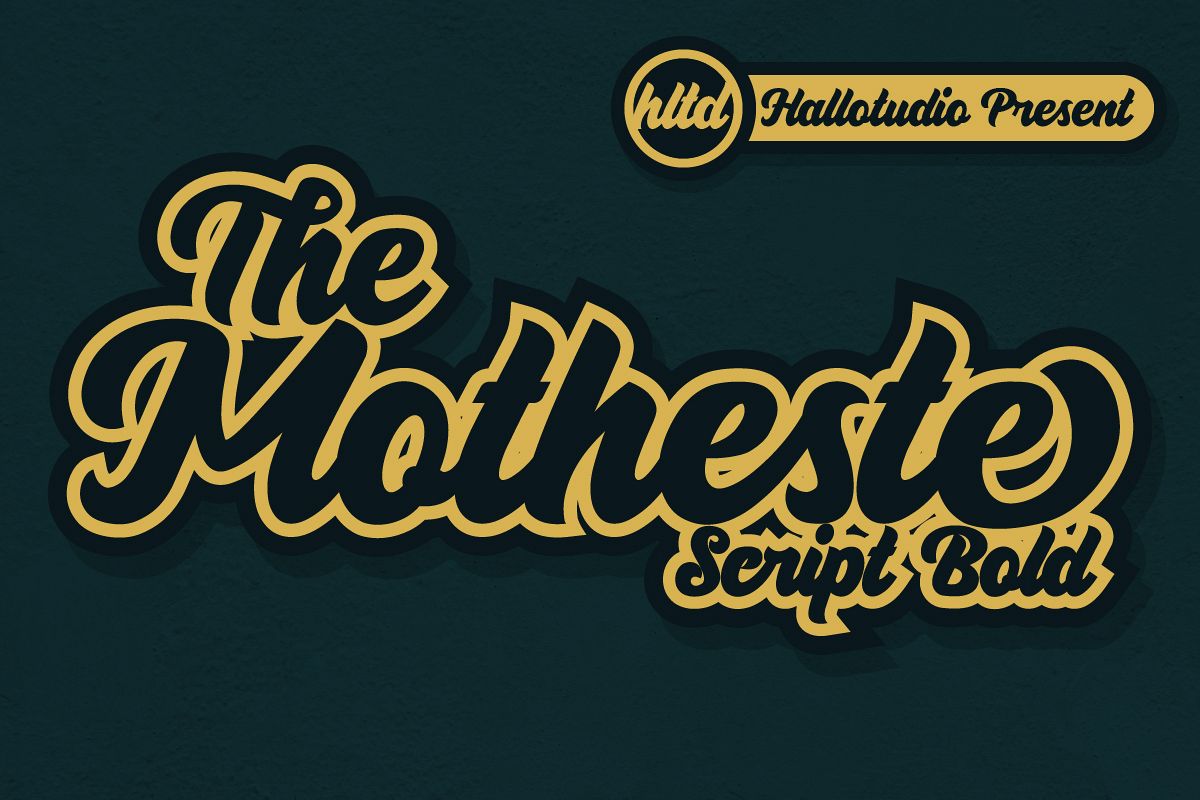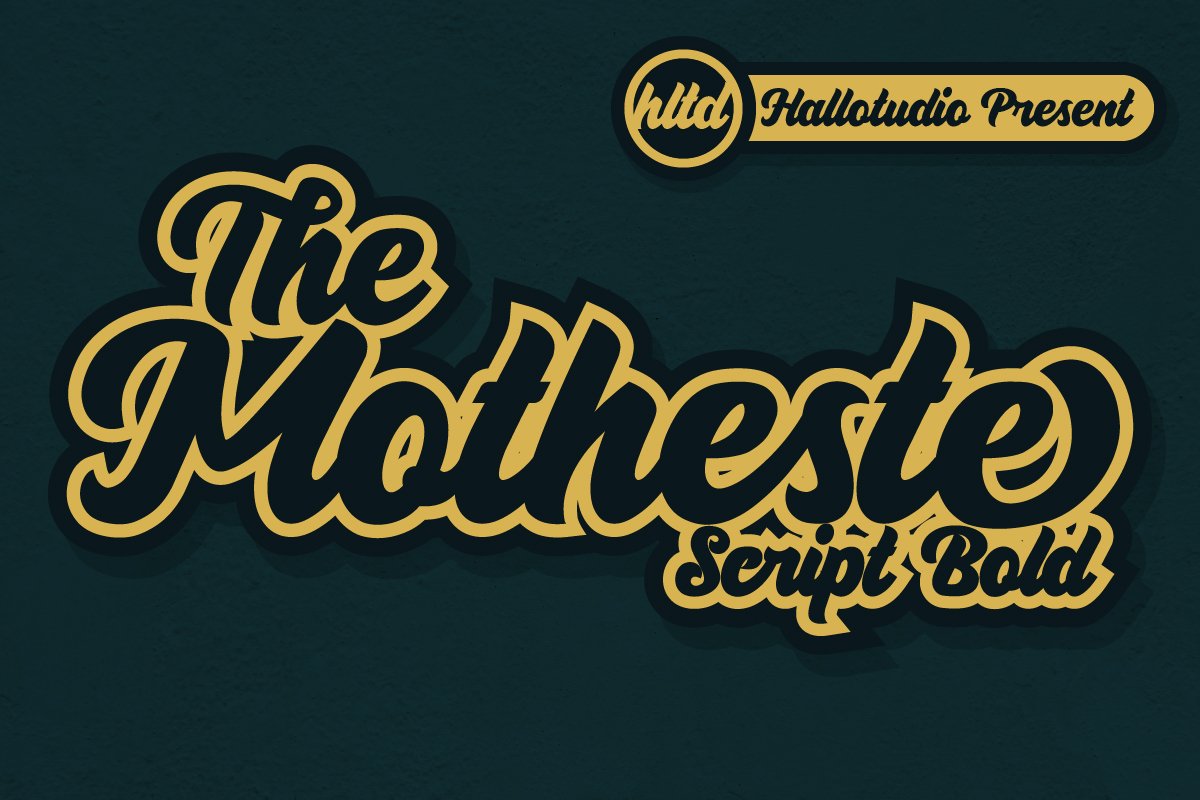
Created By Hallotudio
Motheste
Motheste is script bold font. Motheste is perfect for branding projects, logo, wedding designs, social media posts, advertisements, product packaging, product designs, label, photography, watermark, invitation, stationery and any projects that need handwriting taste.
Uppercase & Lowercase
Number and Pucntuations
Ligature
Multilingual